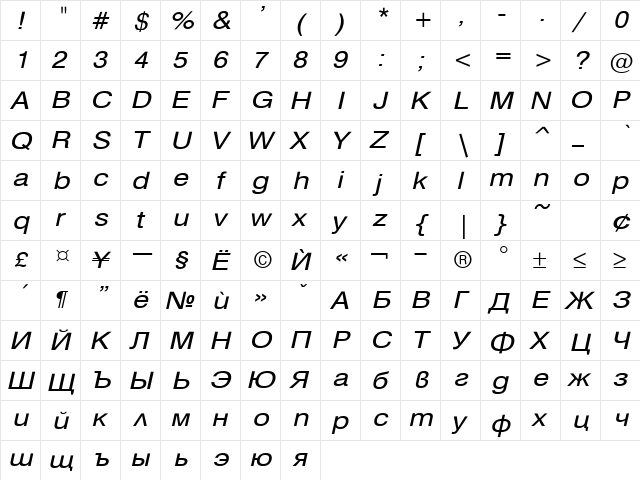
HebarExtended Italic
Design Context for HebarExtended Typeface
HebarExtended offers clean, dependable letterforms without strong stylistic allegiance, making it a practical choice for designers who need flexibility. The slanted form adds forward momentum and visual energy.